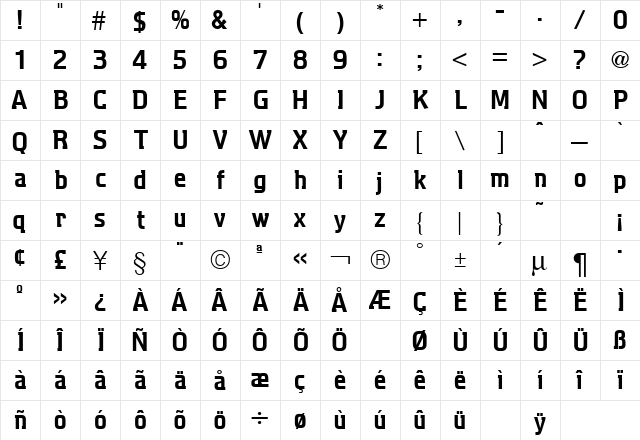
Aquarius Six Regular
Design Context for Aquarius Six Typeface
Aquarius Six takes a measured approach to typography — its balanced proportions and neutral character make it a reliable workhorse for both digital and print work.